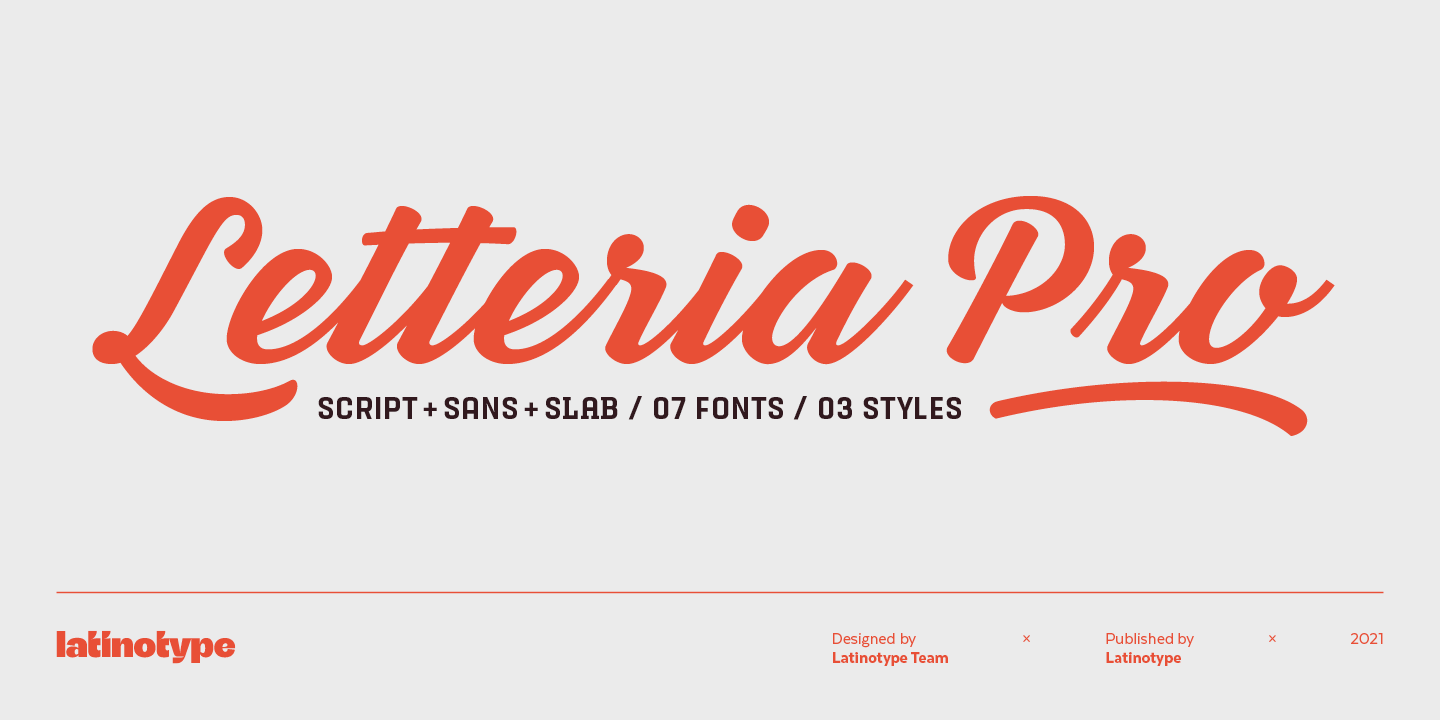
The Letteria Pro Font is ideal for elegant editorial designs, sophisticated magazine layouts, luxury brand communications, premium publishing projects, upscale marketing materials, refined corporate identities, high-end fashion catalogs, and distinguished literary publications. This refined typeface excels in projects for publishing houses, luxury brands, design agencies, fashion companies, and organizations requiring sophisticated typography that conveys editorial excellence, cultural refinement, and professional distinction.
What makes the Letteria Pro Font exciting is its masterful combination of editorial sophistication and contemporary readability with professional-grade typographic features. The font features elegantly crafted letterforms with refined proportions and subtle details that create an immediate association with quality publishing and editorial excellence. Its sophisticated character and versatile design make it perfect for brands seeking to establish credibility and cultural authority while maintaining modern appeal. The font's editorial heritage and professional precision create trust and distinction in competitive markets.
The Letteria Pro Font family includes professionally-designed variations: Thin, Light, Regular, Medium, Semi Bold, Bold, and Black weights, each available in upright and italic styles. Each weight maintains superior editorial quality while offering extensive OpenType features including small caps, old-style numerals, and professional ligatures. The family also includes comprehensive language support and advanced typographic refinements essential for high-end publishing and editorial design.
Whether you're developing editorial brand identities, creating luxury marketing materials, or designing sophisticated promotional campaigns, the Letteria Pro Font Free Download provides the ultimate solution for projects requiring professional editorial typography. This exceptional typeface brings genuine publishing excellence to design work, making it an indispensable resource for designers working with magazines, luxury brands, and organizations demanding the highest standards of typographic sophistication.